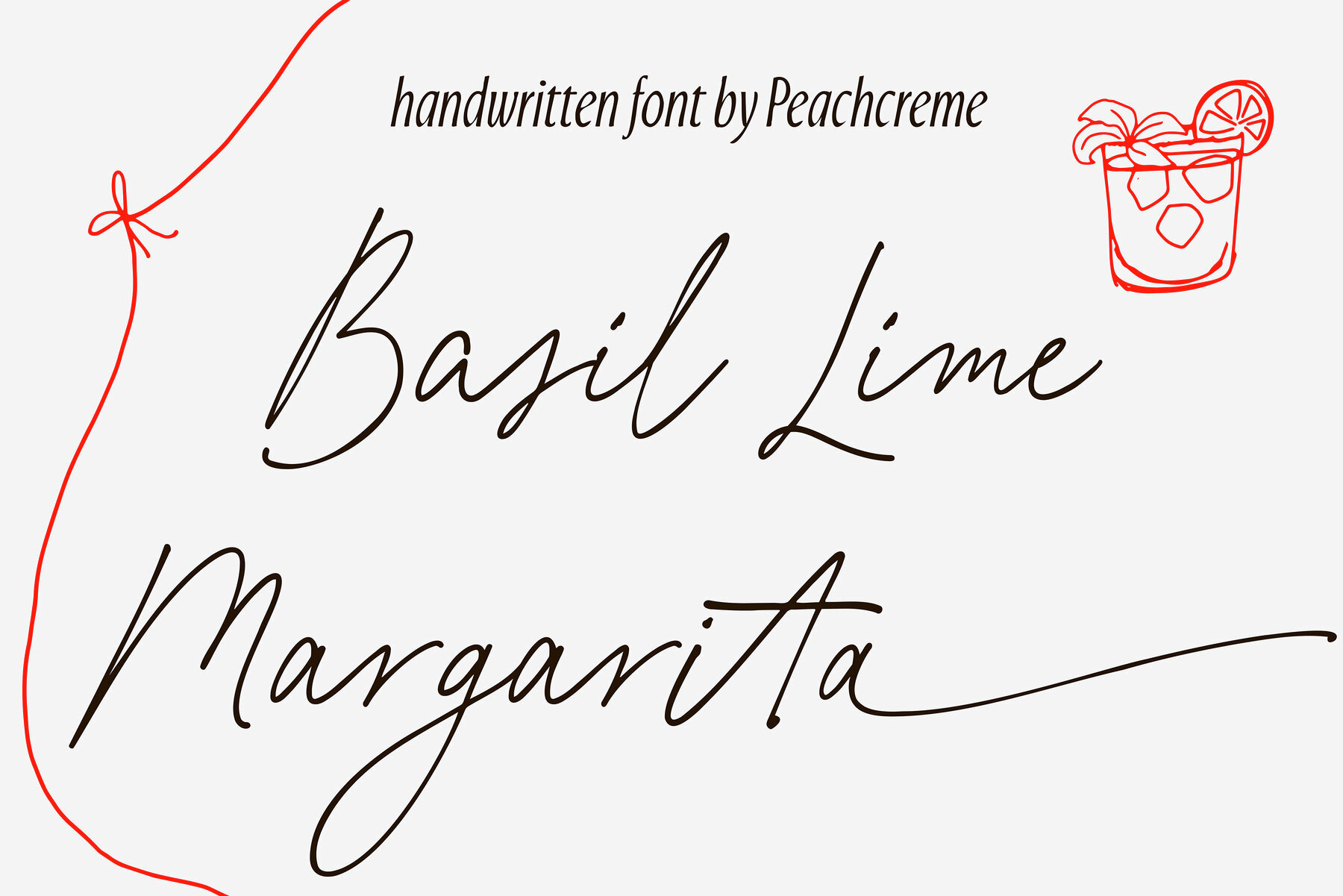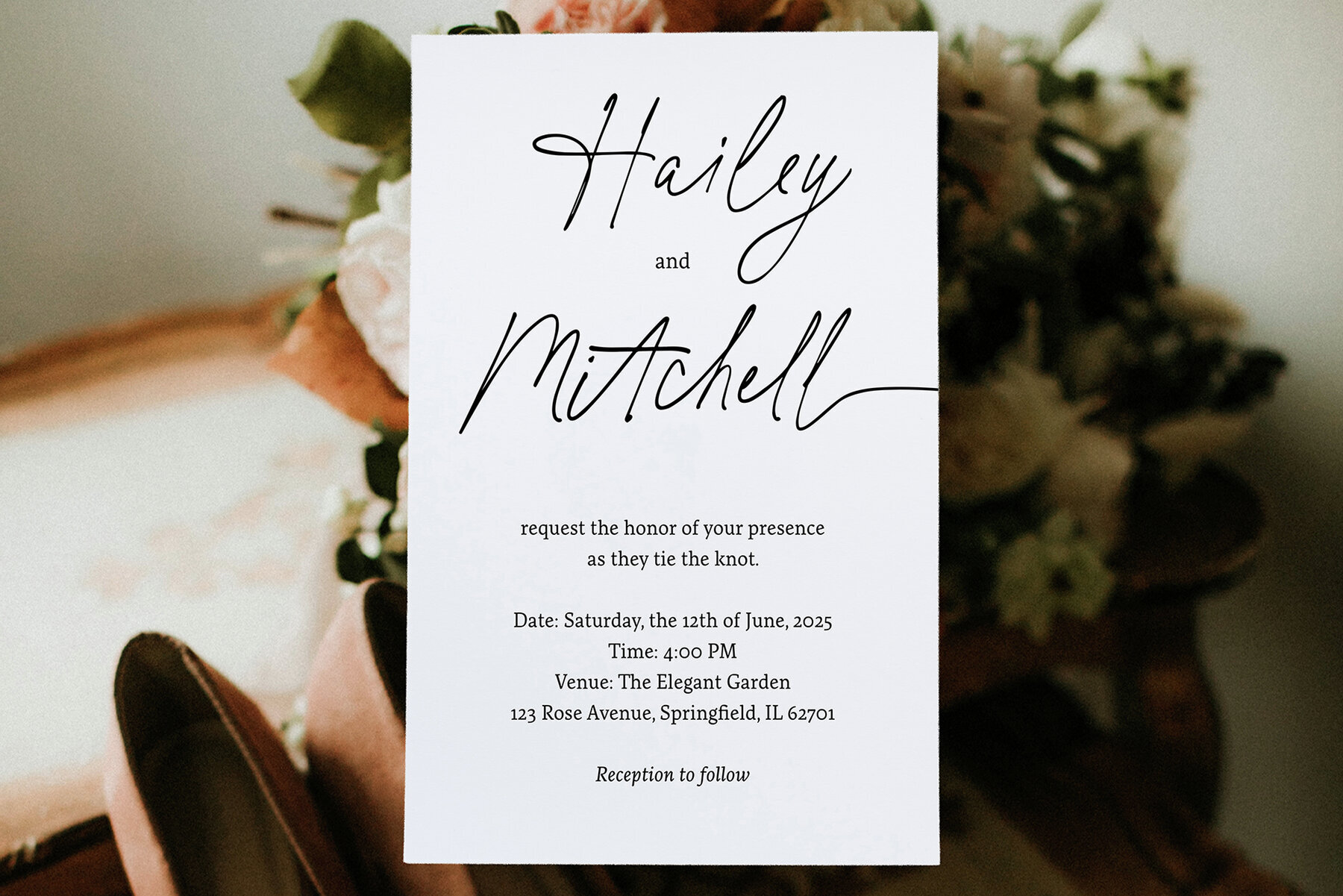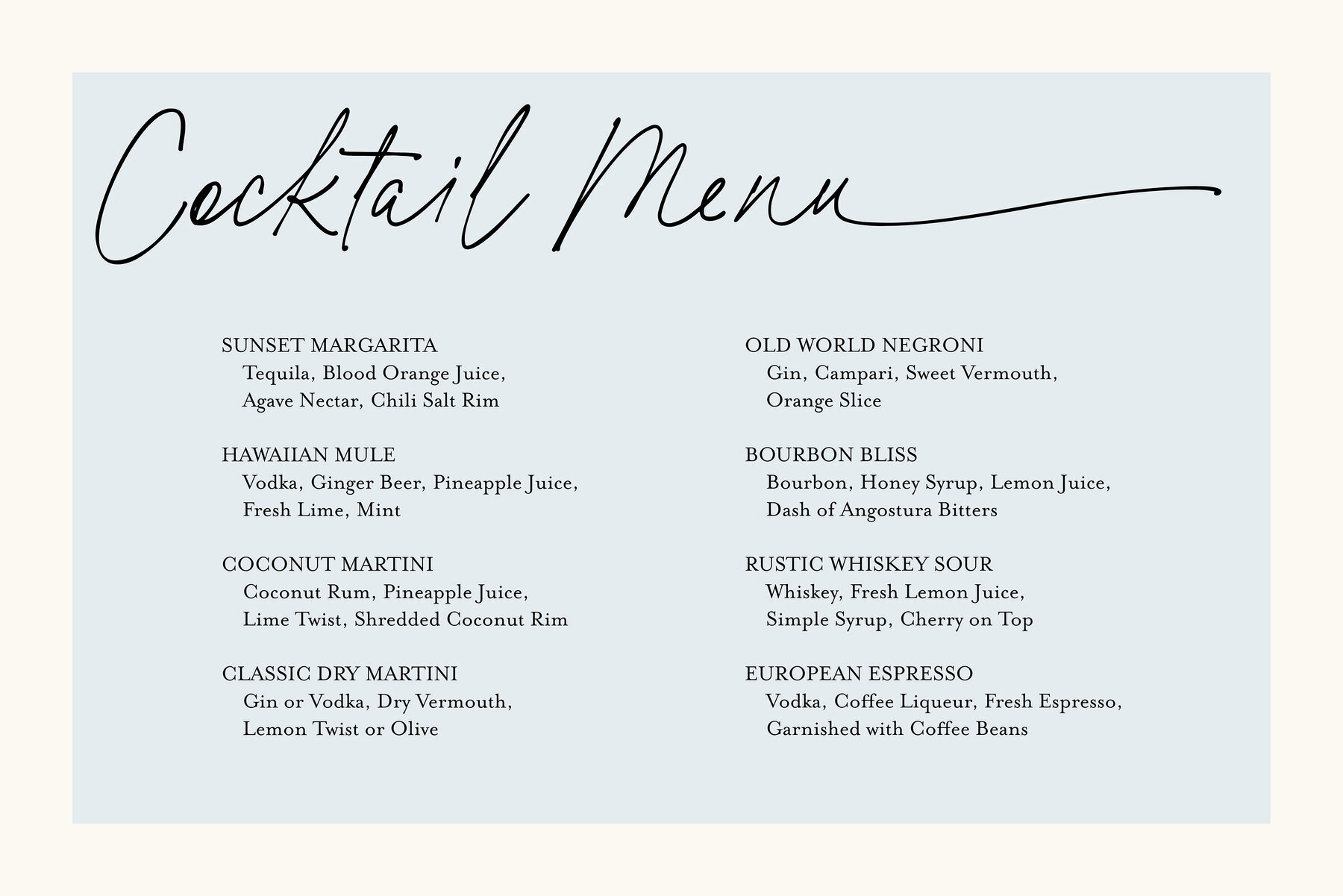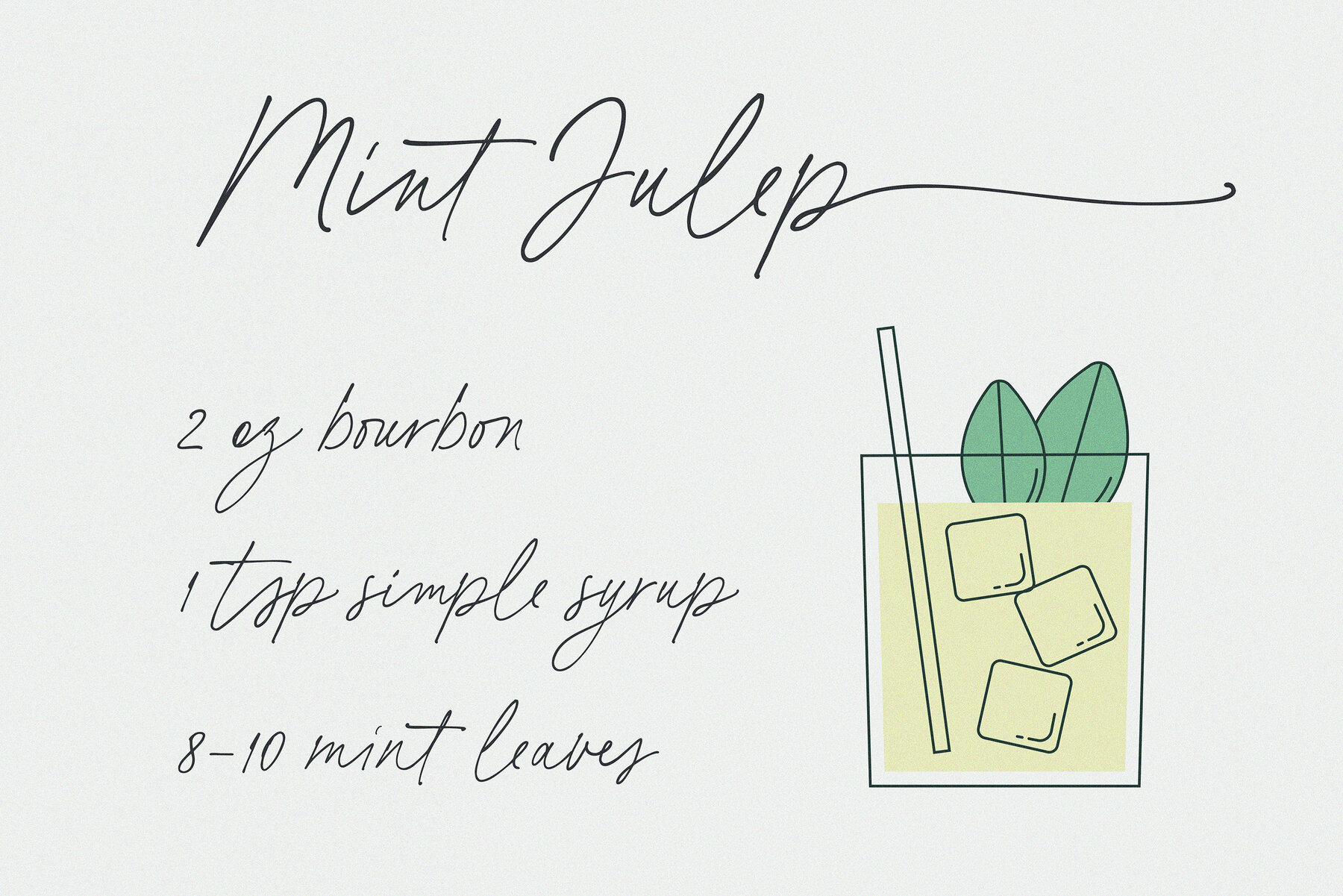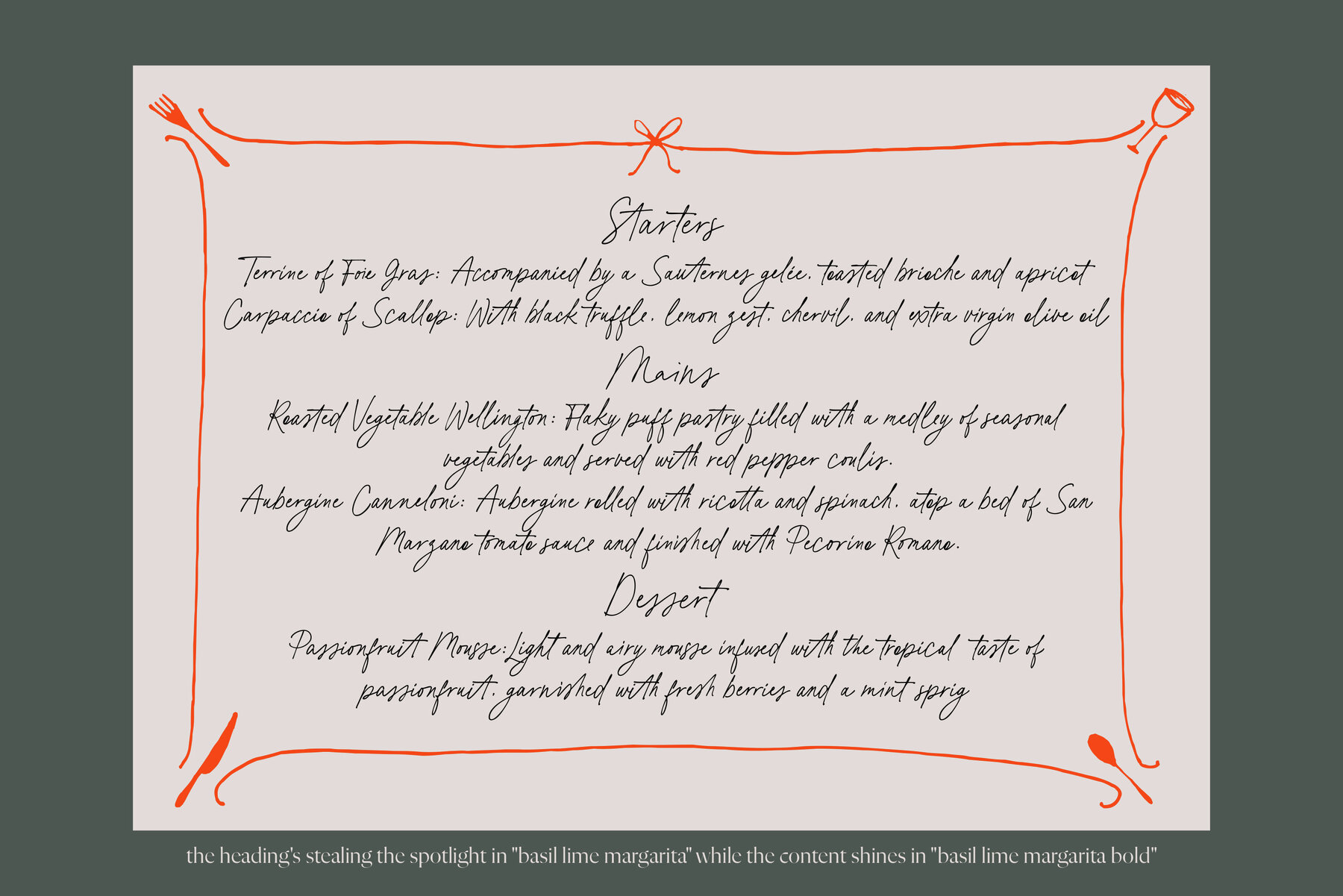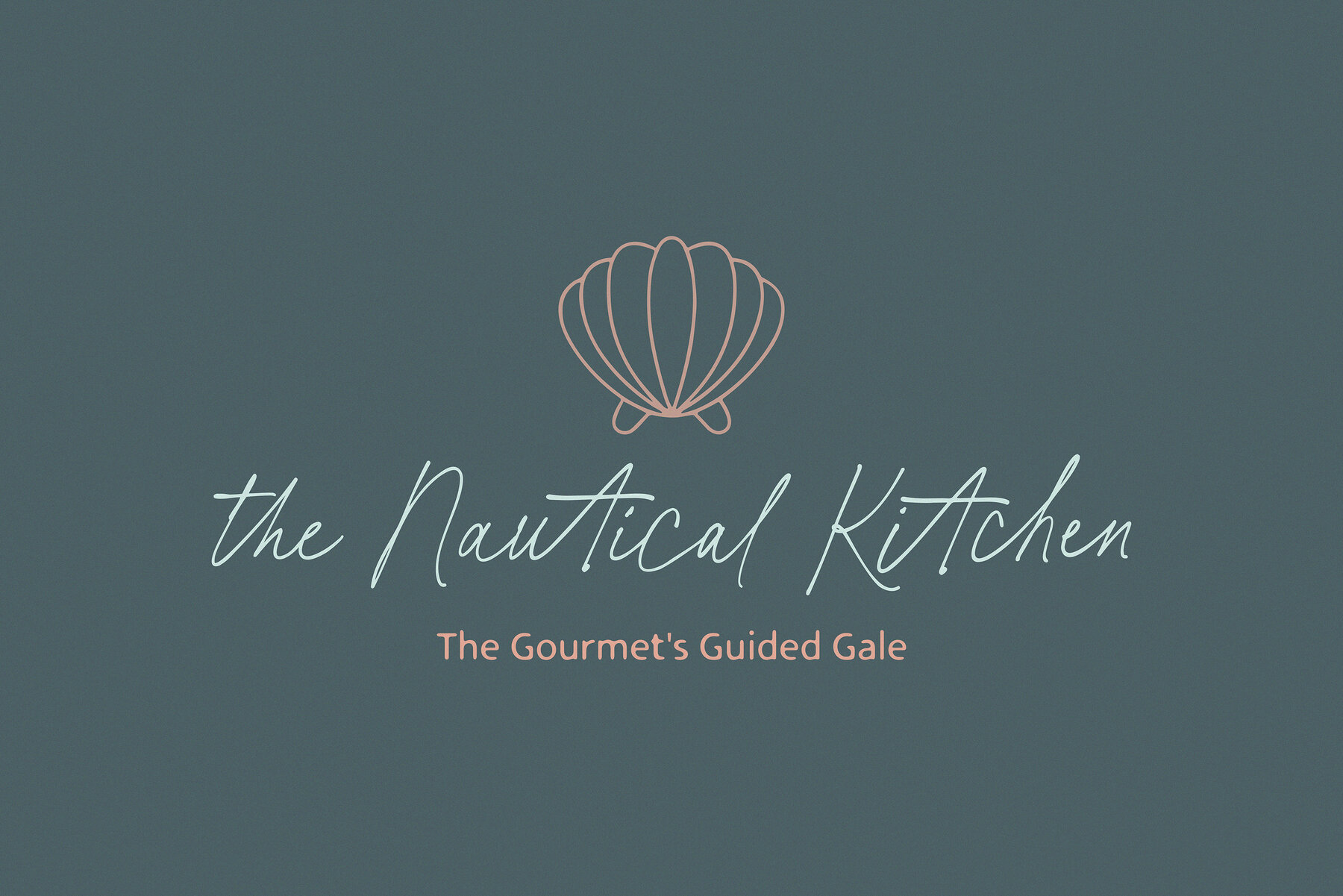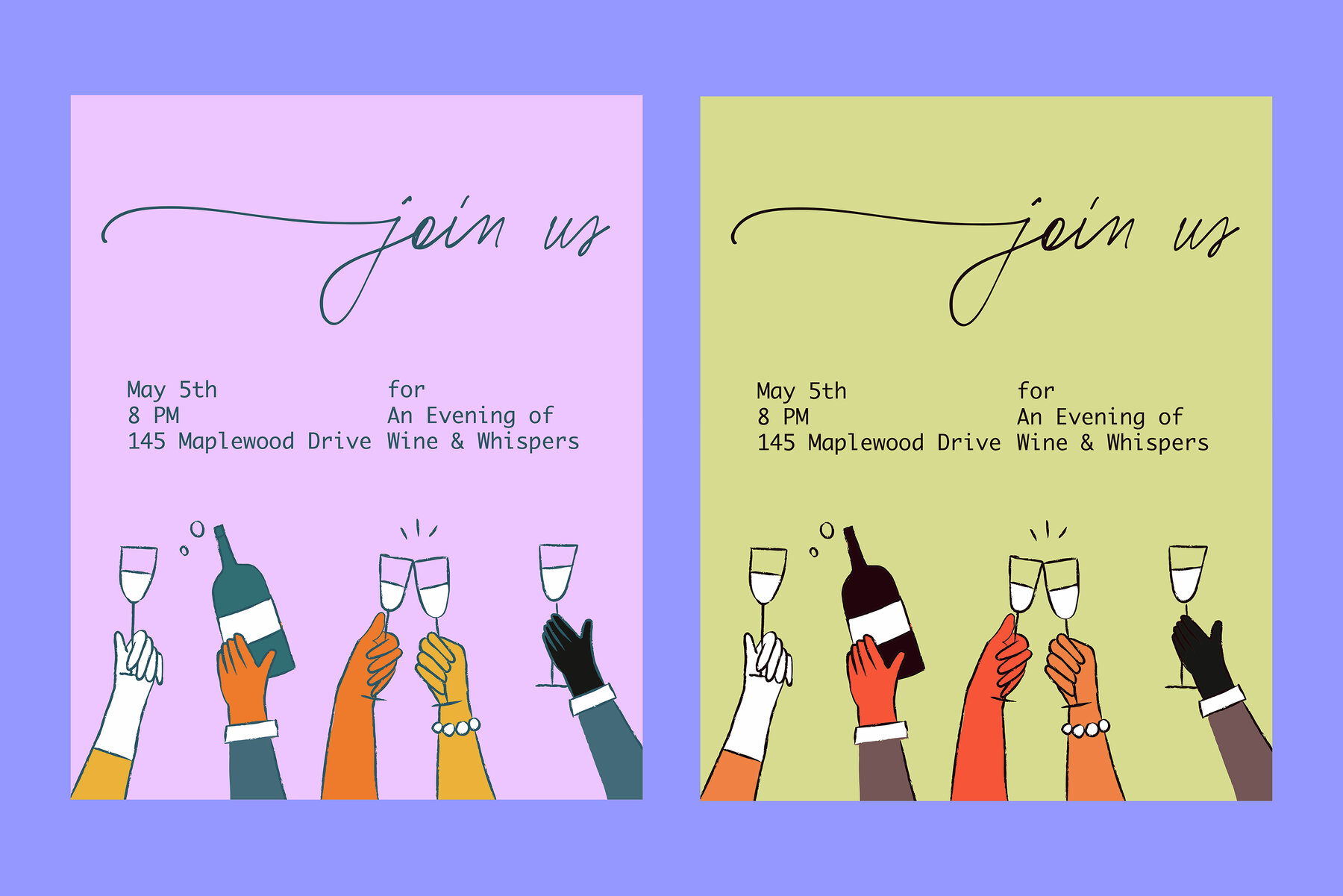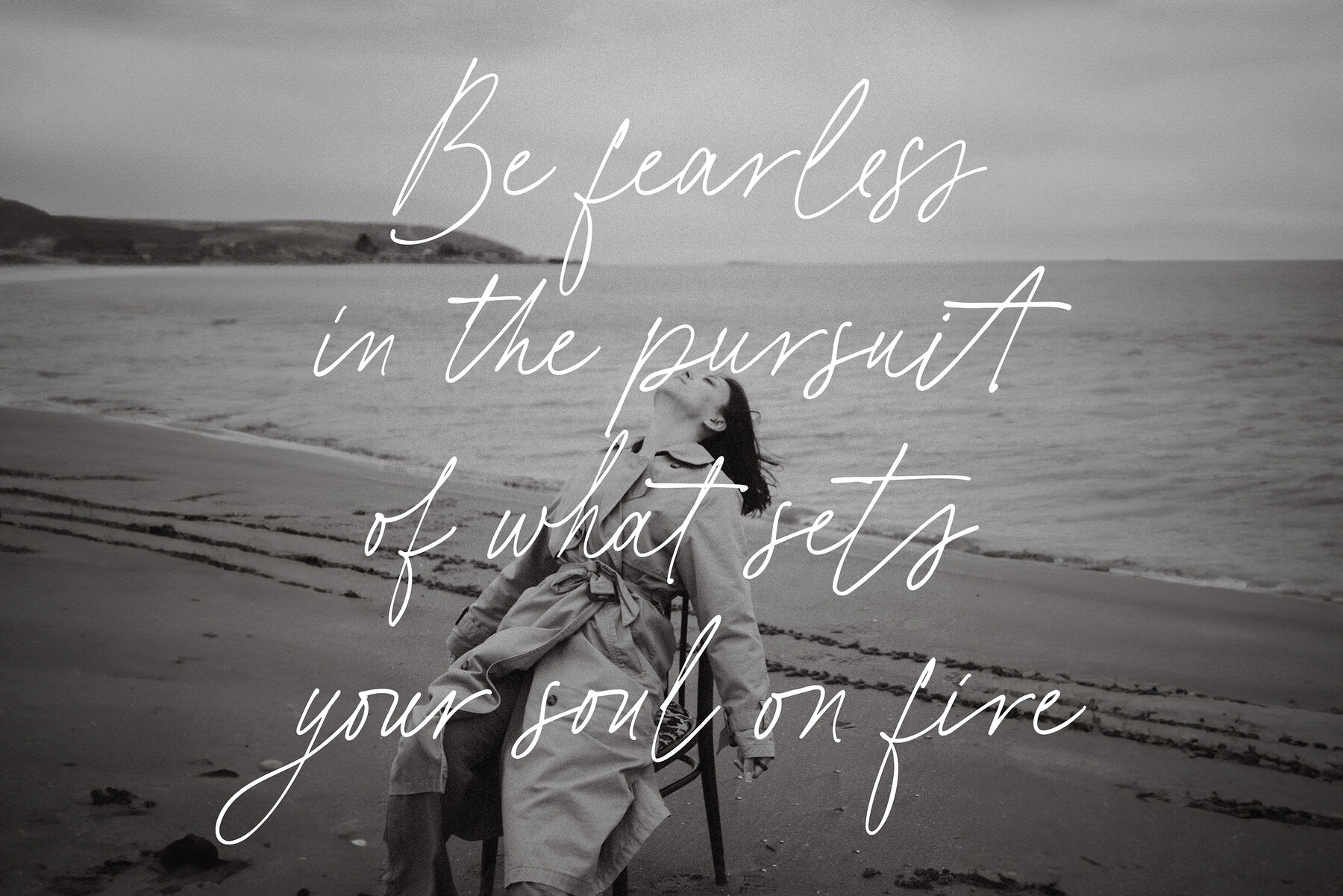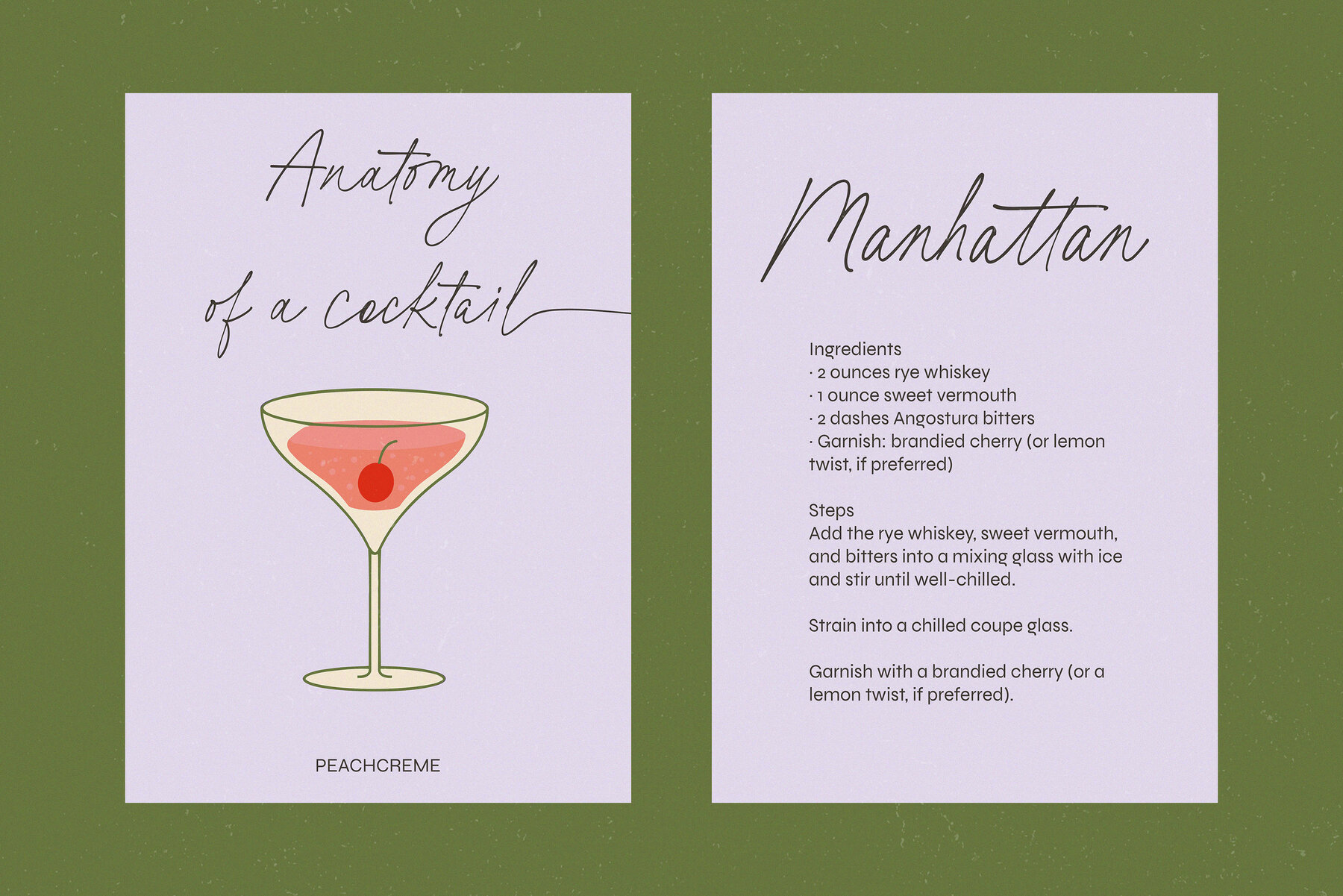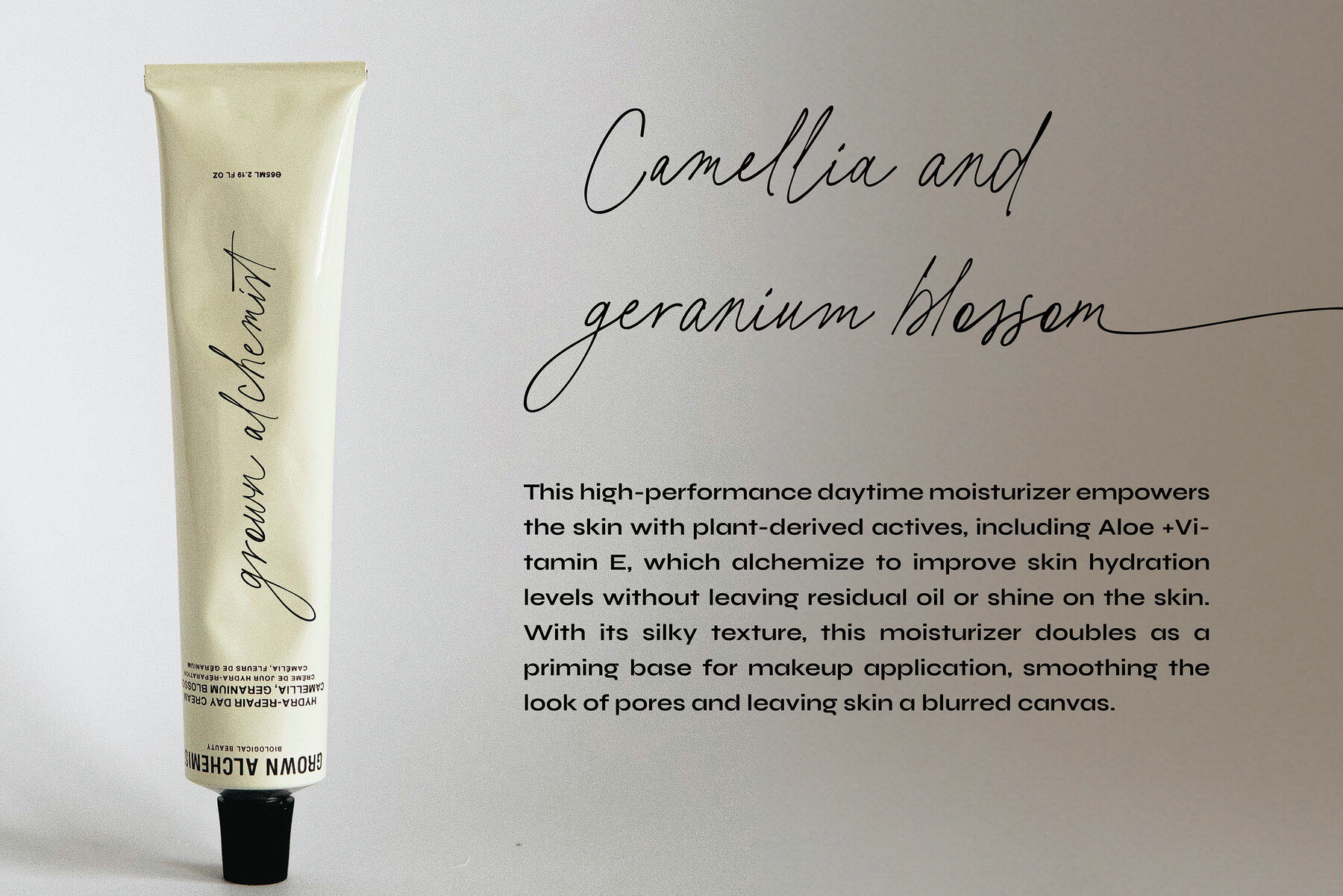
Basil Lime Margarita Font
Explore the refreshing allure of Basil Lime Margarita, a font that balances carefree spontaneity with sophisticated charm. Each stroke, crafted with bespoke calligraphy attention to detail, narrates a story with every letter. Featuring 123 meticulously designed ligatures, this font creates a seamless and captivating flow, making it a delightful playground for design creativity.
With distinct beginning and ending swashes, Basil Lime Margarita offers versatility for various projects, whether you're branding a chic café or writing heartfelt notes. Its ability to make your message stand out with a touch of zest and charm adds uniqueness to any design. Experience the blend of elegance, fluidity, and creativity with Basil Lime Margarita.